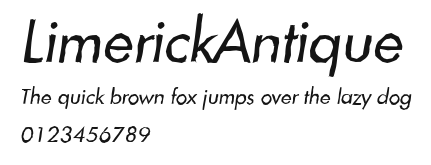
LimerickAntique Preview
• Font Name: LimerickAntique
• Designer: SoftMaker Software GmbH
About LimerickAntique.ttf
LimerickAntique.ttf is a modern, elegant sans-serif font designed for ultimate readability and visual harmony. Perfect for branding, headlines, web design, and print materials.